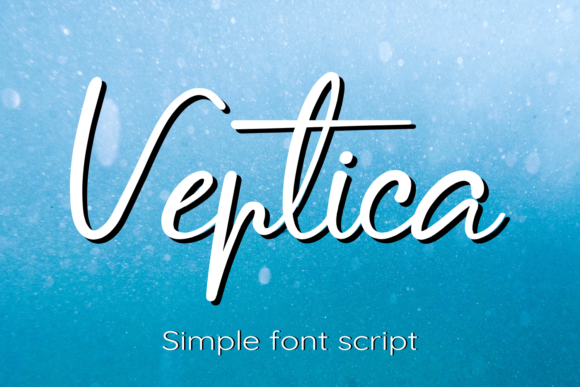
Introducing Vertica, a stunning script font that will make your designs sing! Its clean and gentle curves will caress your projects with a touch of elegance and beauty.
Escape the mundane and immerse yourself in the world of Vertica Script! This exquisite typeface will captivate your audience with its effortless flow and authentic charm. Unleash your creativity and let Vertica weave its magic into your designs.
With Vertica at your fingertips, ordinary projects transform into masterpieces. Its versatility knows no bounds, making it the perfect choice for a wide range of creative endeavors. From exquisite invitations to captivating social media posts, Vertica will leave an unforgettable mark on everything it touches.
Embrace the allure of Vertica! Its captivating aura will draw your audience in, leaving them spellbound by its charm. Let its enchanting characters take you on a journey of self-expression, where imagination knows no limits.
Indulge in the beauty of Vertica, a font crafted with love and meticulous attention to detail. Each letter is a work of art, a testament to the passion behind its creation. Elevate your designs with Vertica and experience the transformative power of true artistry.